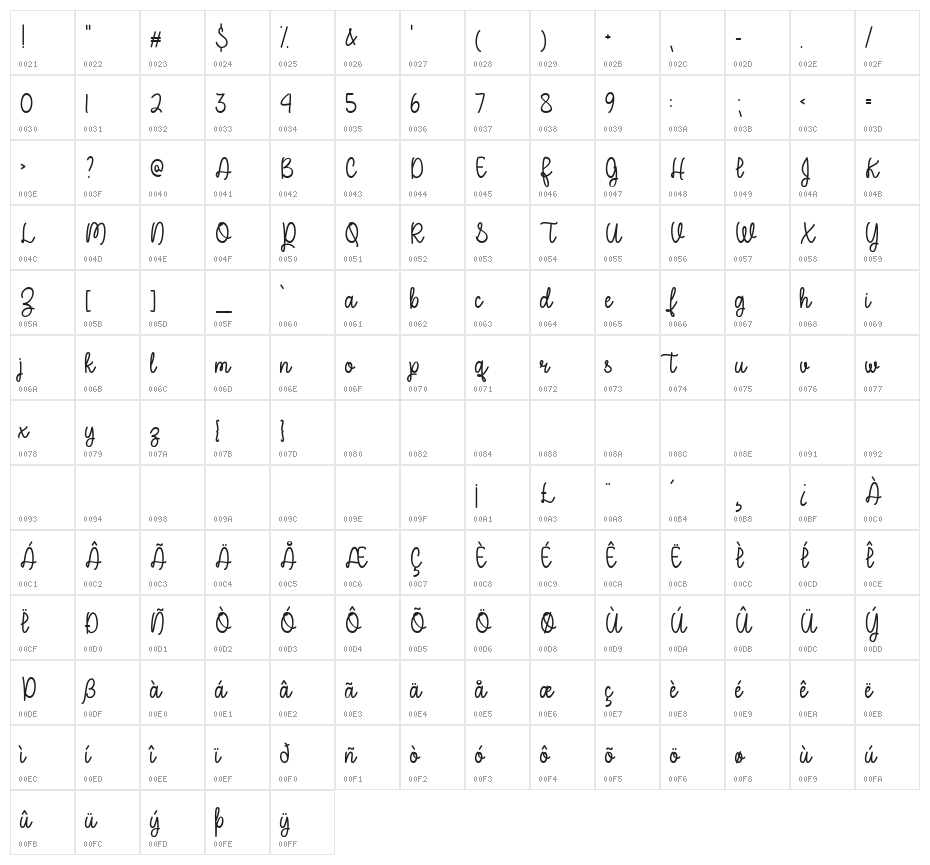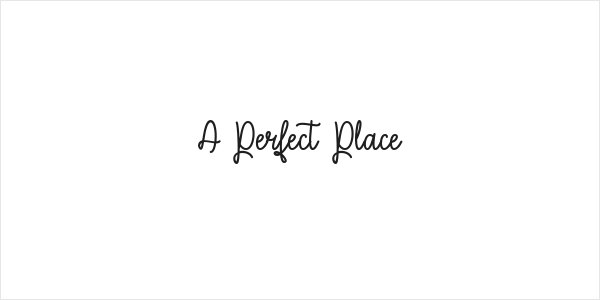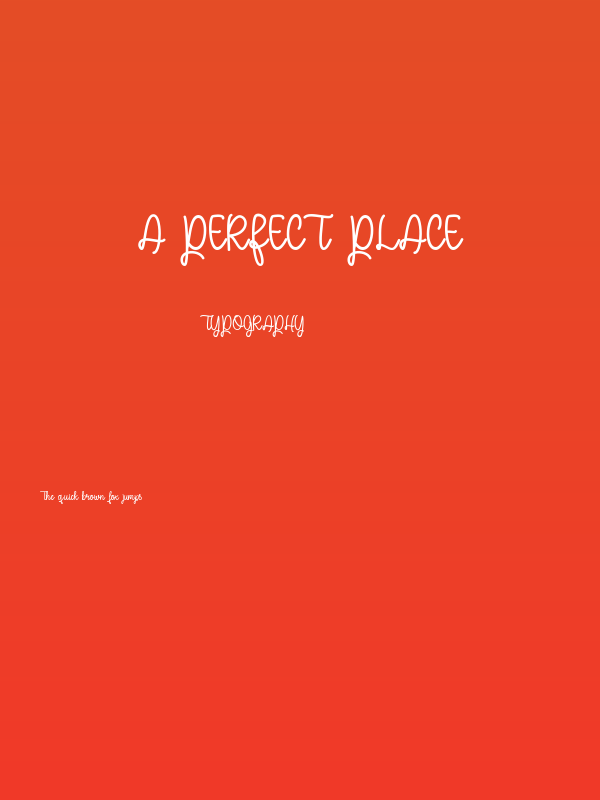
A Perfect Place Font
A Perfect Place Description
This font features a playful and casual handwritten style, characterized by its smooth, flowing curves and loops. The letters are interconnected, giving it a cohesive and continuous appearance. The uppercase letters are bold and prominent, while the lowercase letters maintain a consistent flow, enhancing readability. The numerals are clear and distinct, matching the overall style of the alphabet. Special characters are well-integrated, maintaining the font's whimsical and friendly aesthetic. This font's informal and approachable design makes it suitable for a variety of creative projects.
| Overall Style | Casual |
| Use Case | Logos, Headlines, Invitations |
| Proposed Projects | Ideal for greeting cards, invitations, personal branding, and creative social media graphics. |